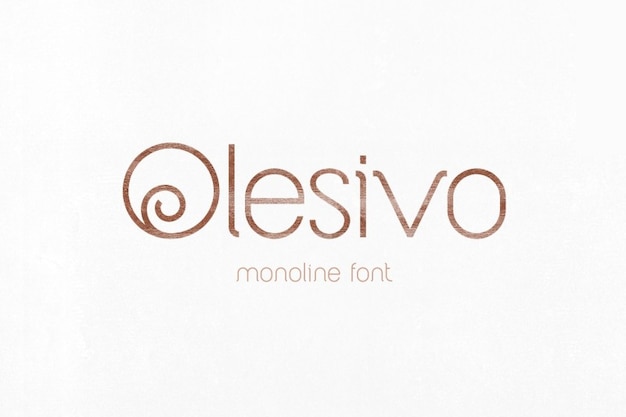
Olesivo
Olesivo Font
It is where modern meets classic in a beautifully rounded embrace. This font seamlessly blends the elegance of classic typefaces with a contemporary twist, creating a versatile and timeless design tool. With its smooth, rounded letterforms, Olesivo adds a touch of sophistication to any project, whether it's a vintage-inspired poster or a sleek, modern logo. This font brings a harmonious balance of the old and new, making it a top choice for designers seeking versatility and style